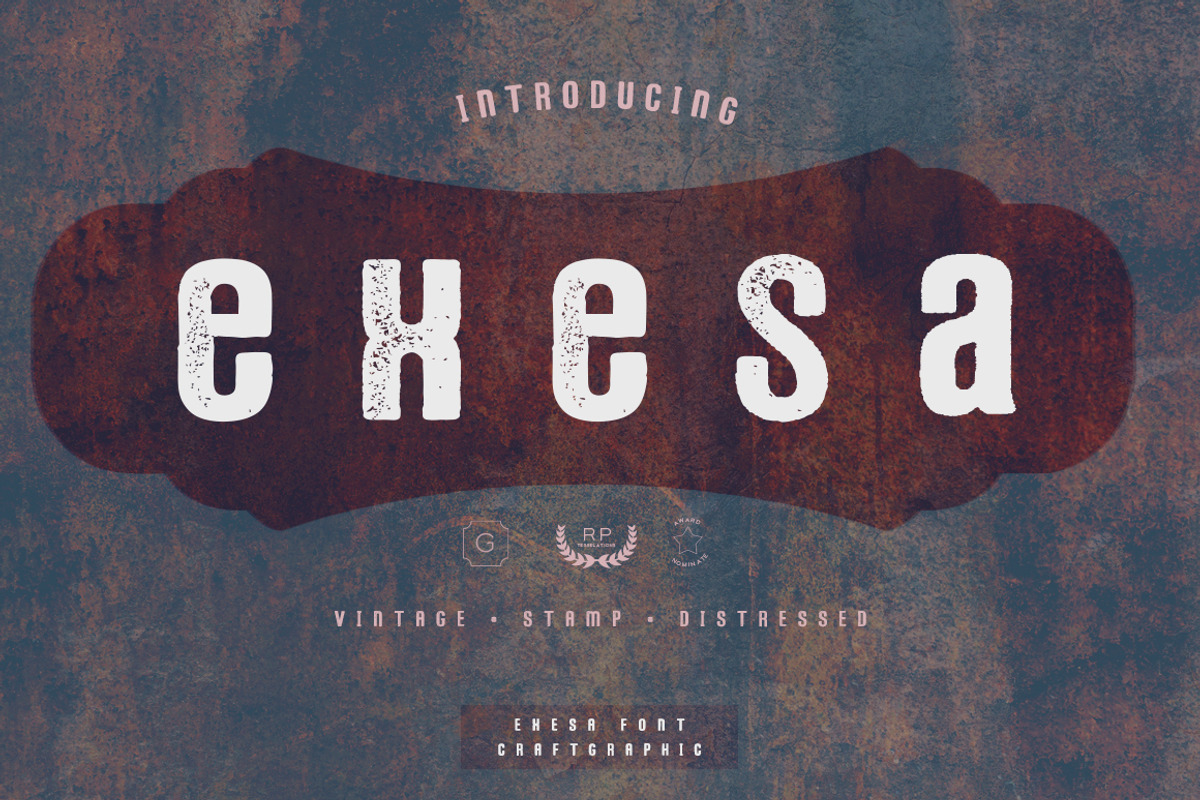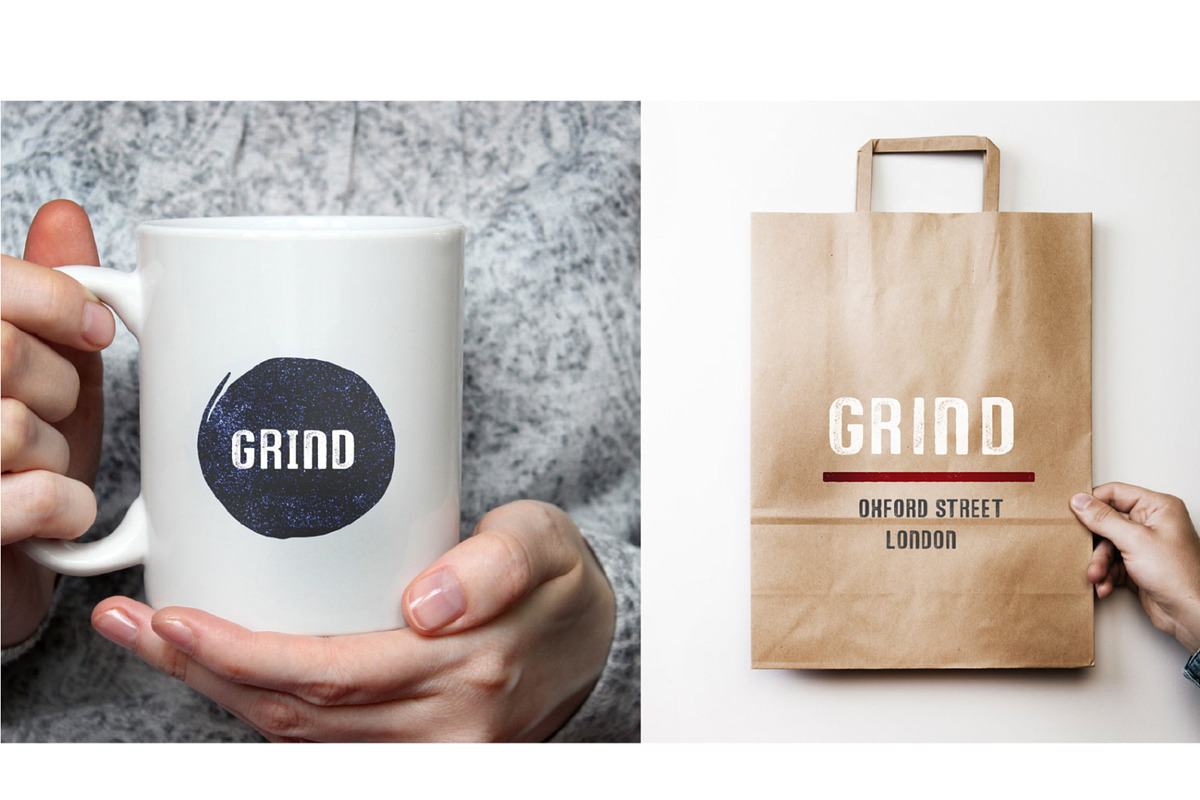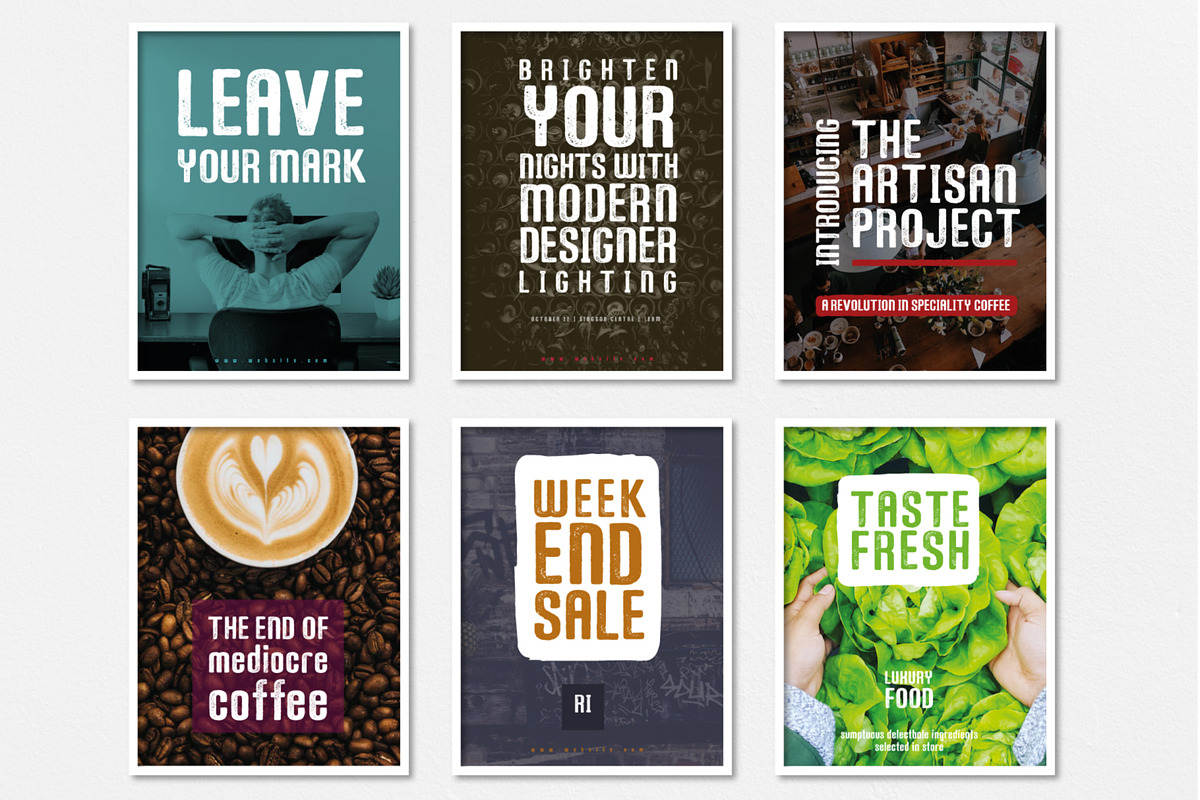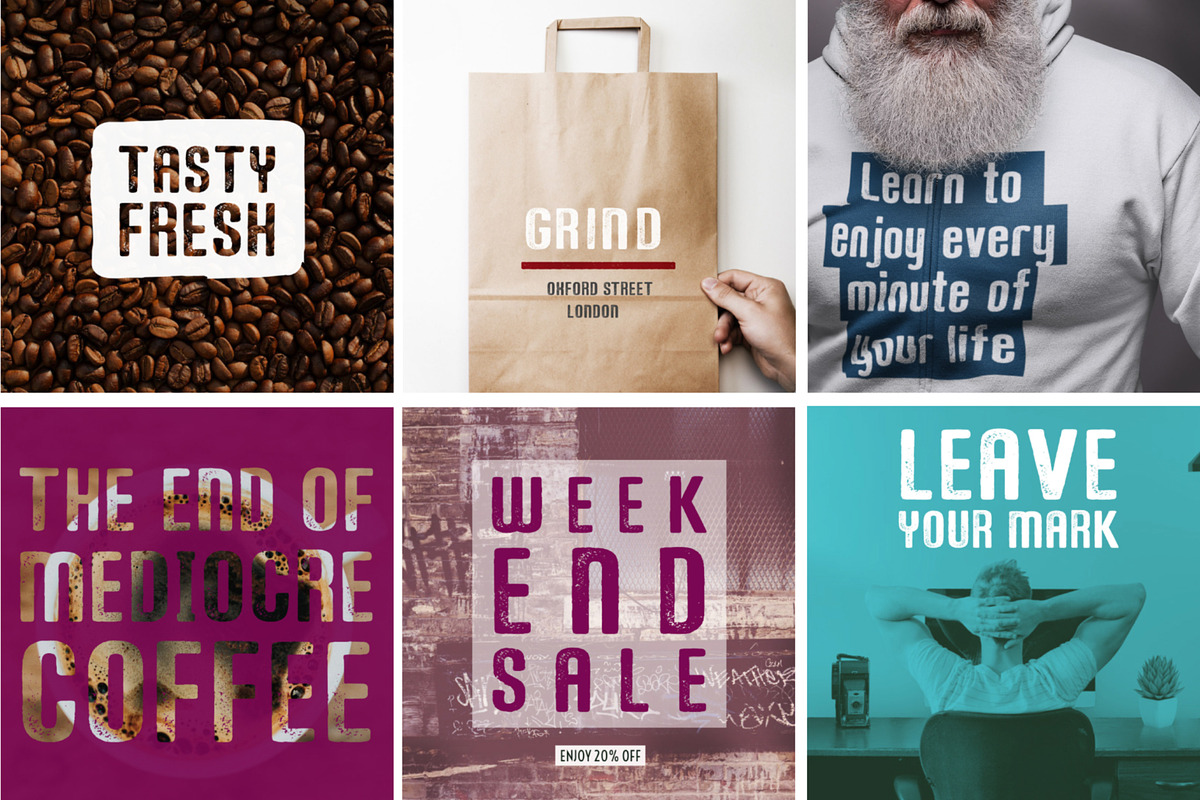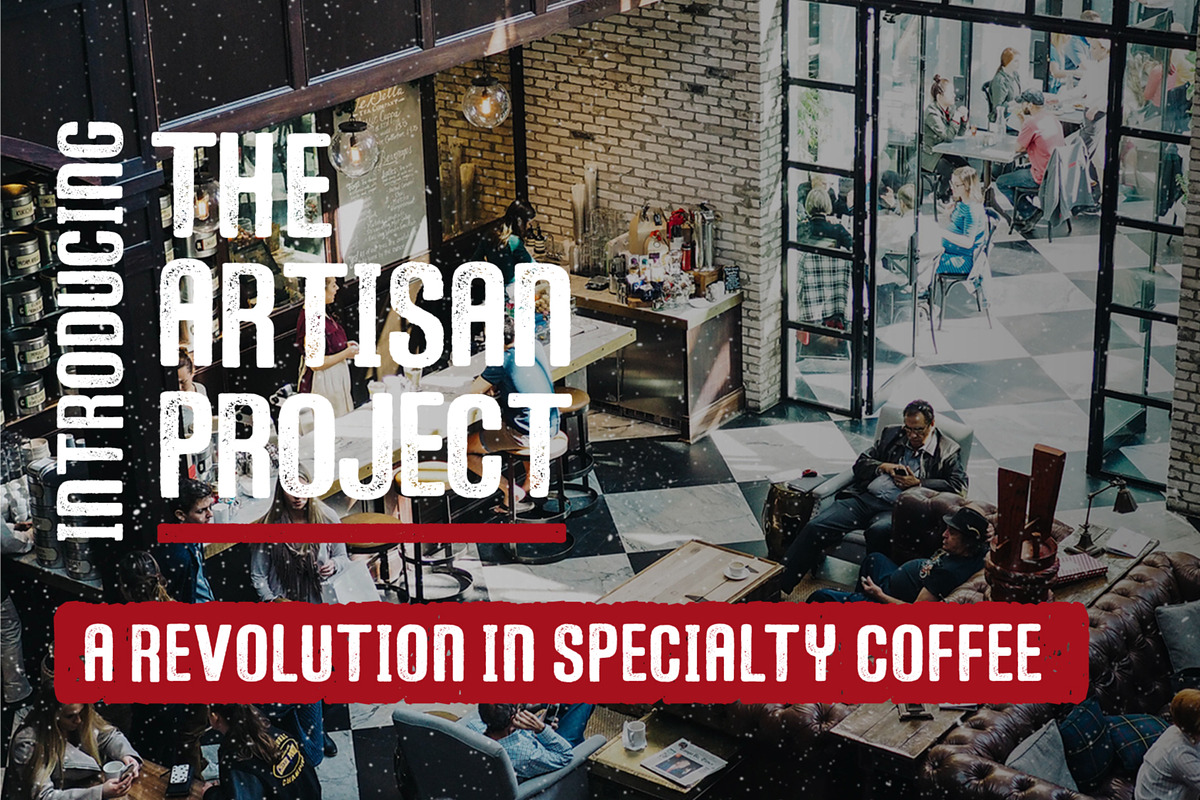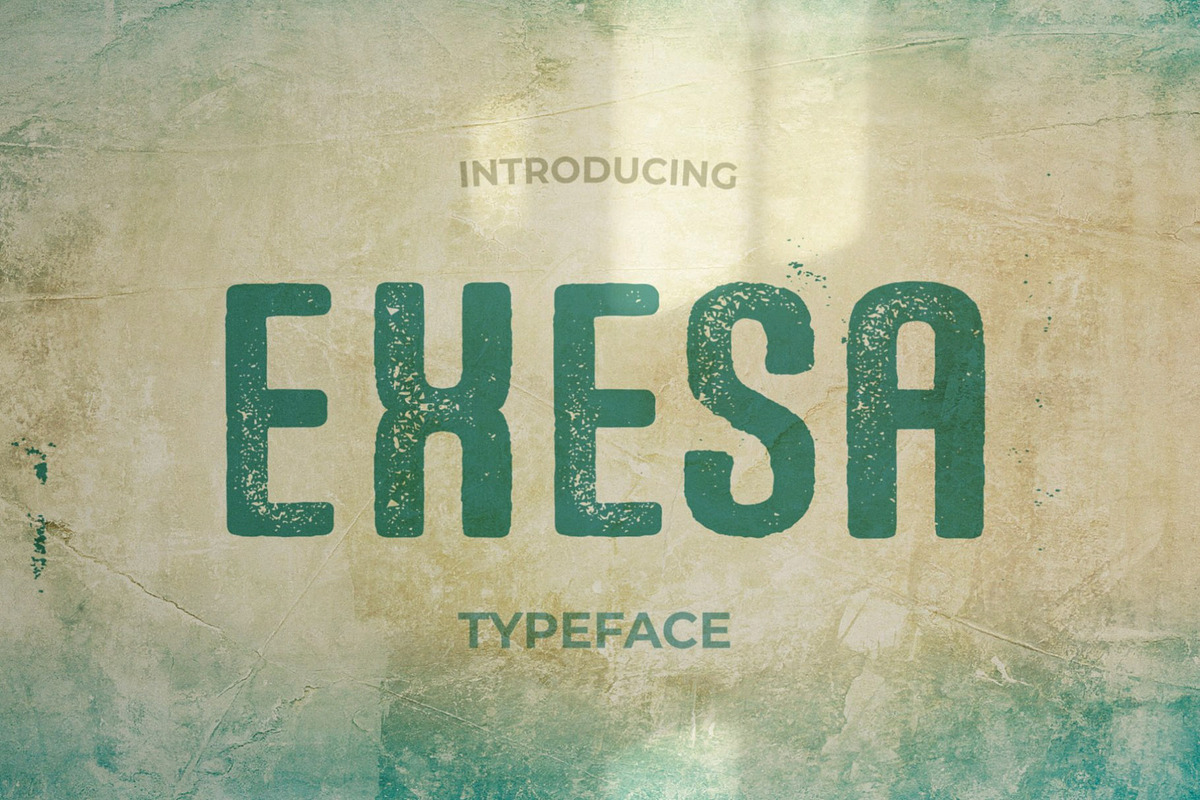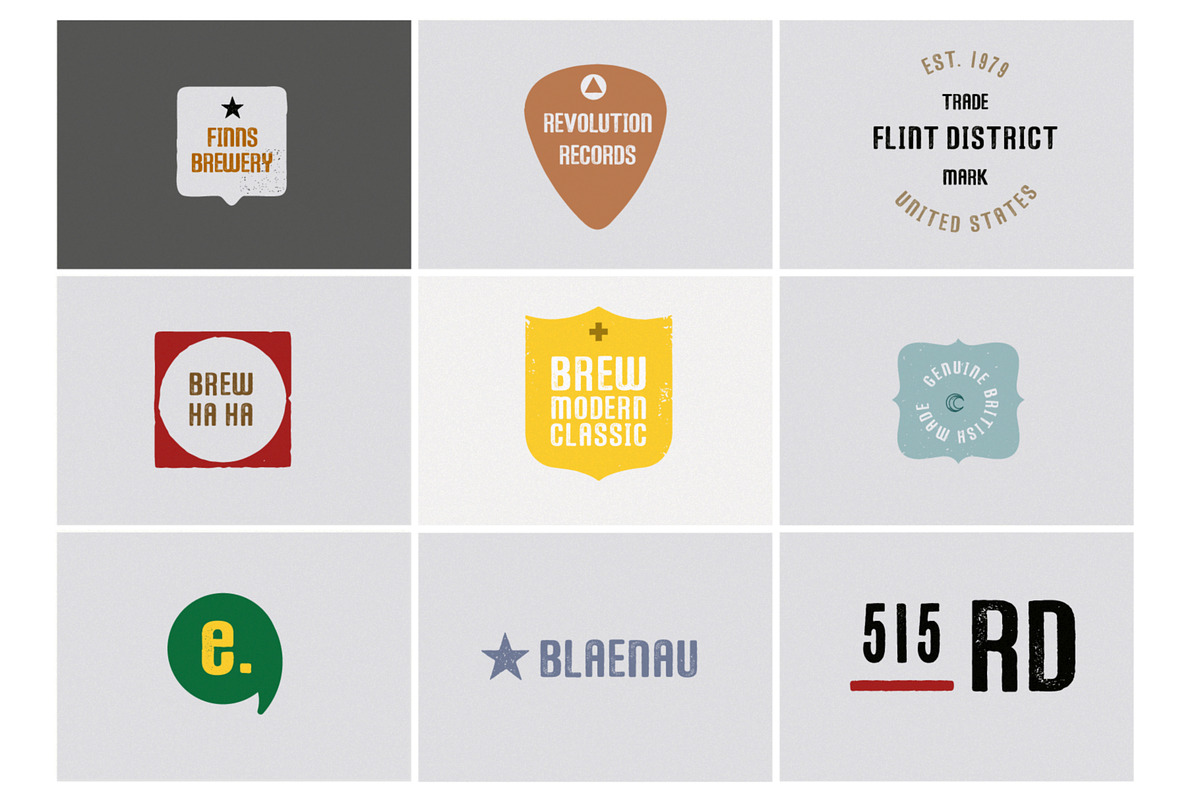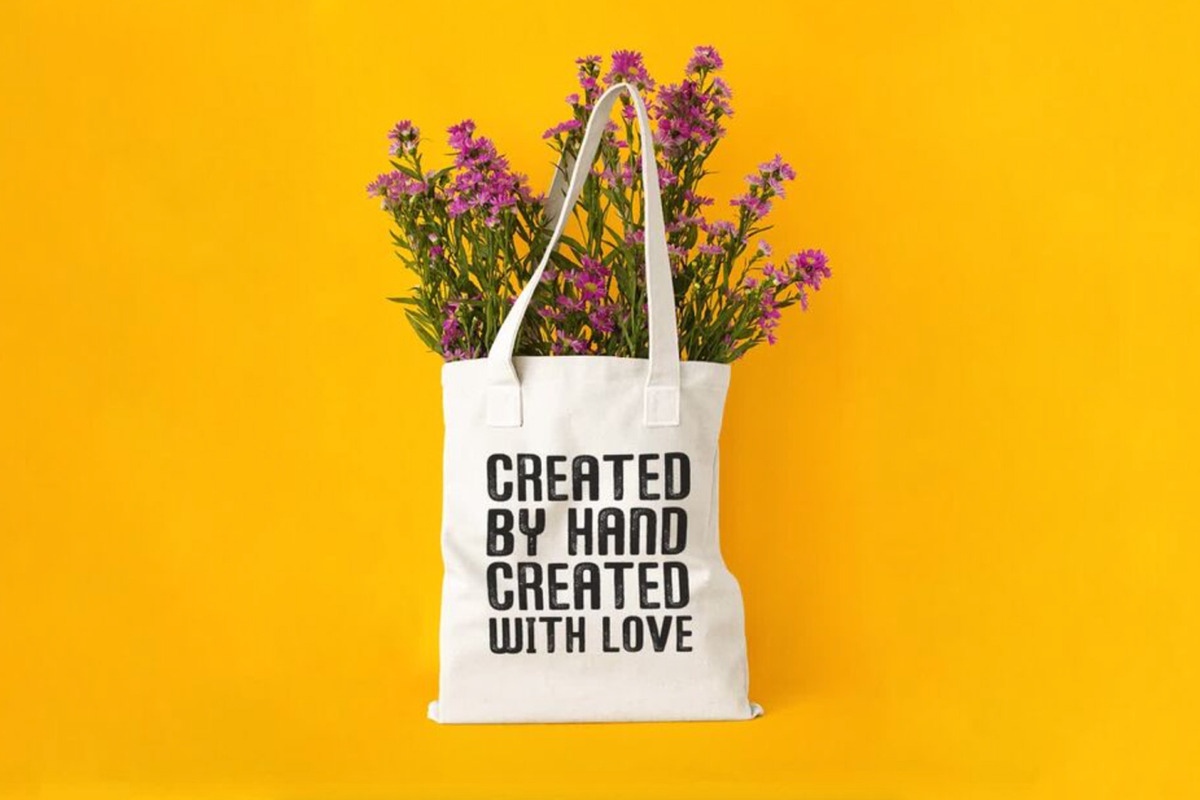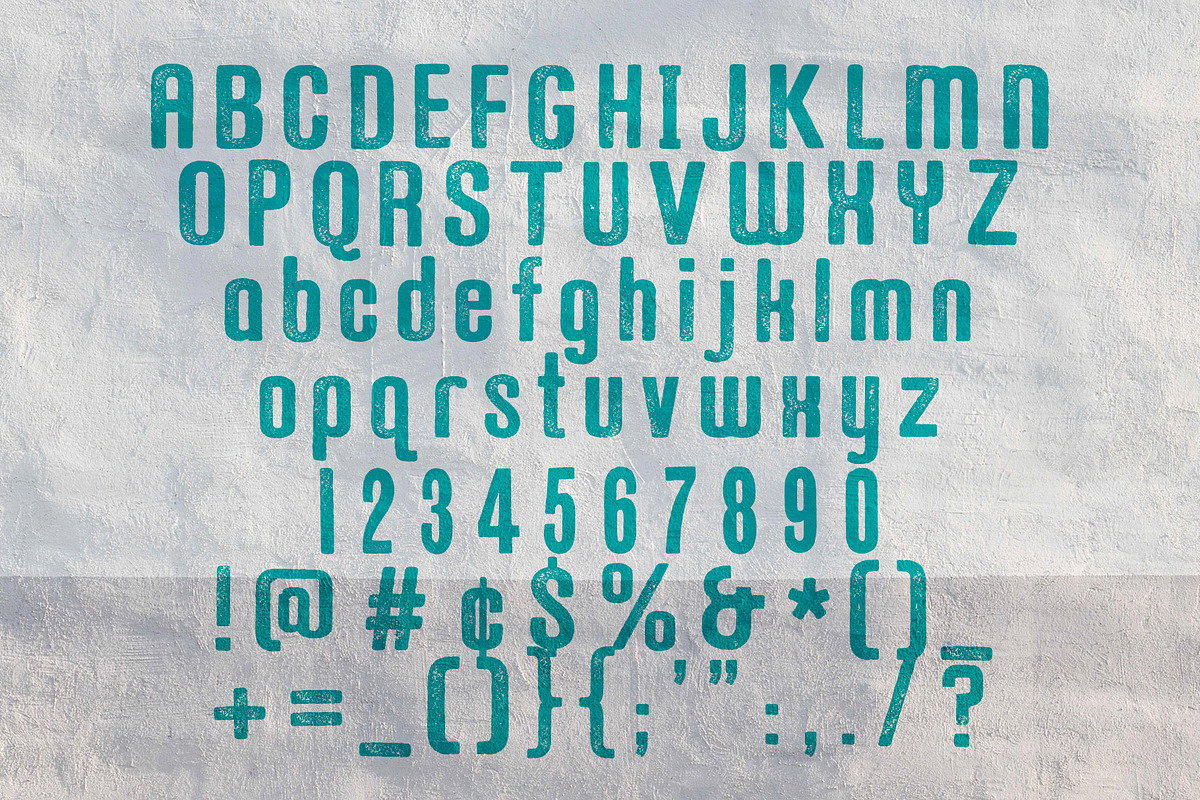
Exesa Vintage Stamp Font
Exesa Vintage Stamp Font is a rugged, handcrafted typeface inspired by the charm of vintage stamps. With its bold, distressed look, Exesa is perfect for projects that need an authentic, retro touch. Ideal for branding, packaging, logos, and posters, this font brings a raw, textured aesthetic to your designs.
Whether you’re creating vintage-themed designs or adding a worn, industrial look to your work, Exesa offers the perfect combination of boldness and nostalgia. Its stamped, distressed effect gives every letter a unique, handcrafted feel.
- Uppercase and lowercase letters
- Distressed, stamped style
Exesa is the go-to choice for designs that need an authentic, vintage stamp effect with a bold, standout presence.